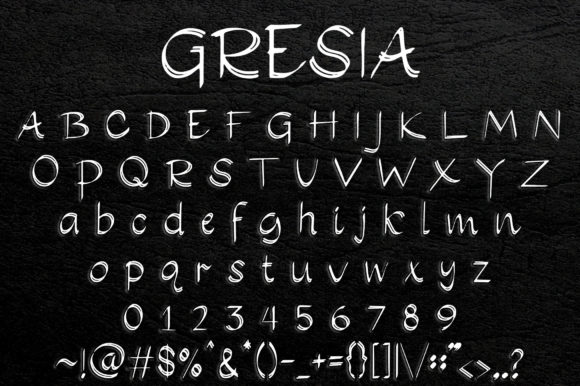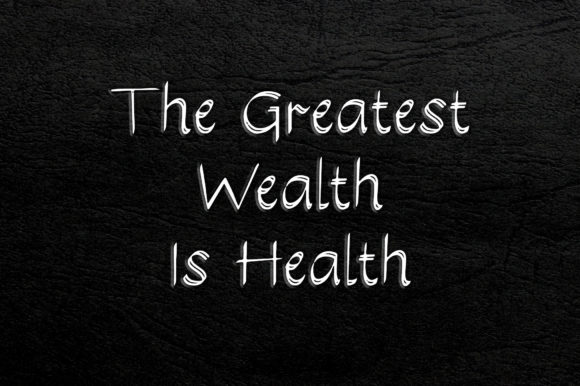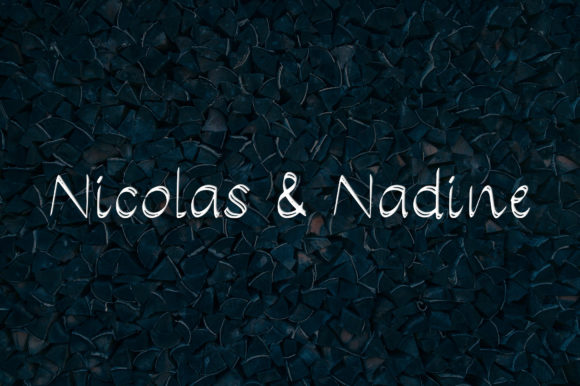
Introduction to Gresia Font
Gresia is a unique and elegant handwritten font.
It looks beautiful on a variety of designs requiring a personalized style, such as wedding invitations, thank you cards, weddings, greeting cards, logos and so on .
Gresia Font offers exceptional quality and versatility, making it a valuable addition to your design toolkit. Whether you’re creating for personal projects or commercial use, Gresia Font delivers professional results.